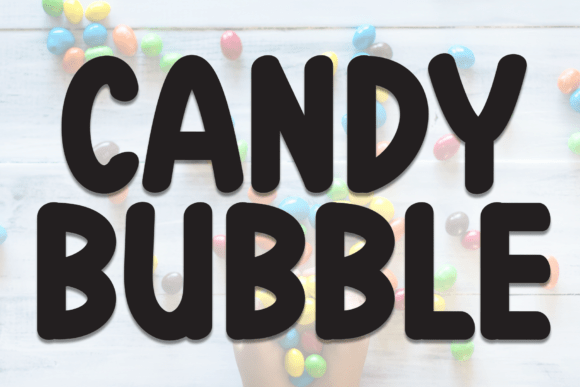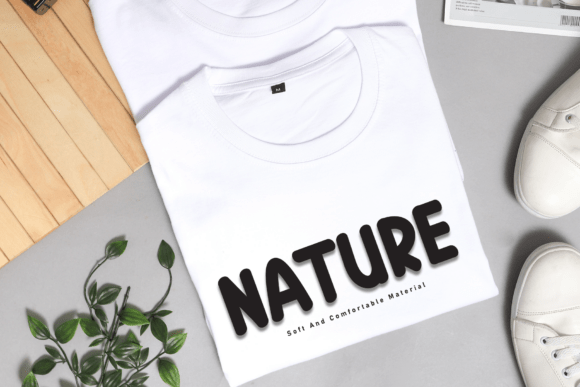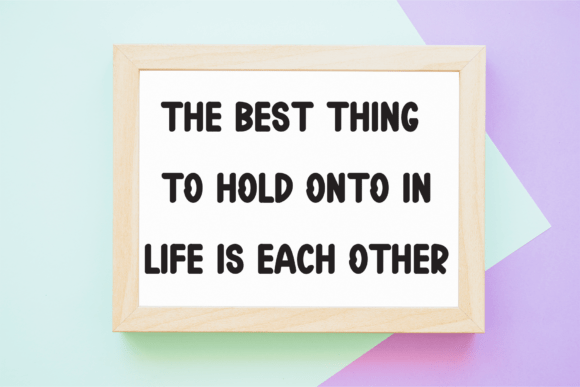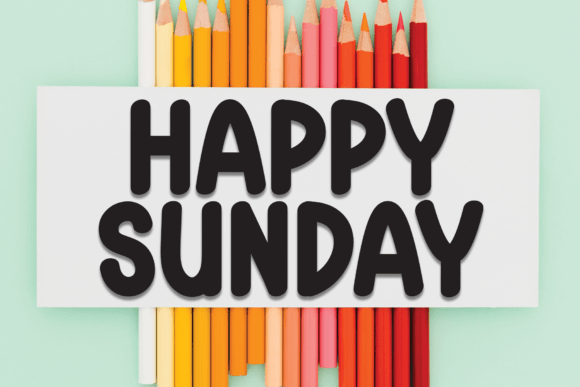
Candy Bubble Font
About the Candy Bubble Font
The Candy Bubble Font is here to transform your projects with its distinctive character and style. Immerse yourself in the charming allure of a handwritten display font that mingles sweetness with friendliness. With a delightfully cute and fun aesthetic, this font is the perfect element to lend a touch of whimsy to your wedding invitations or cards. Whether you’re creating a heartwarming note or a playful design, this font adds an endearing and enjoyable touch to every project it graces.
Candy Bubble Font’s playful, rounded forms make it ideal for headlines, short text blocks on packaging, and eye-catching elements in social media graphics. It excels in projects requiring a friendly, approachable aesthetic, such as children’s books, sweet treat branding, or invitations for casual events. However, its low x-height and decorative nature make it unsuitable for body text or lengthy paragraphs; readability suffers at smaller sizes.
Pairing Candy Bubble with a clean sans-serif like Montserrat or Lato provides excellent contrast and visual balance. For a more sophisticated feel, consider pairing it with a delicate serif like Playfair Display. Avoid pairing it with other highly decorative fonts, as this can lead to visual clutter.
Its core personality is undeniably cheerful and approachable. Think of it as the design equivalent of a bubbly, friendly personality; it is best suited to projects conveying joy, fun, and youthful energy.
Candy Bubble Font Usage Examples
Candy Bubble Font Example